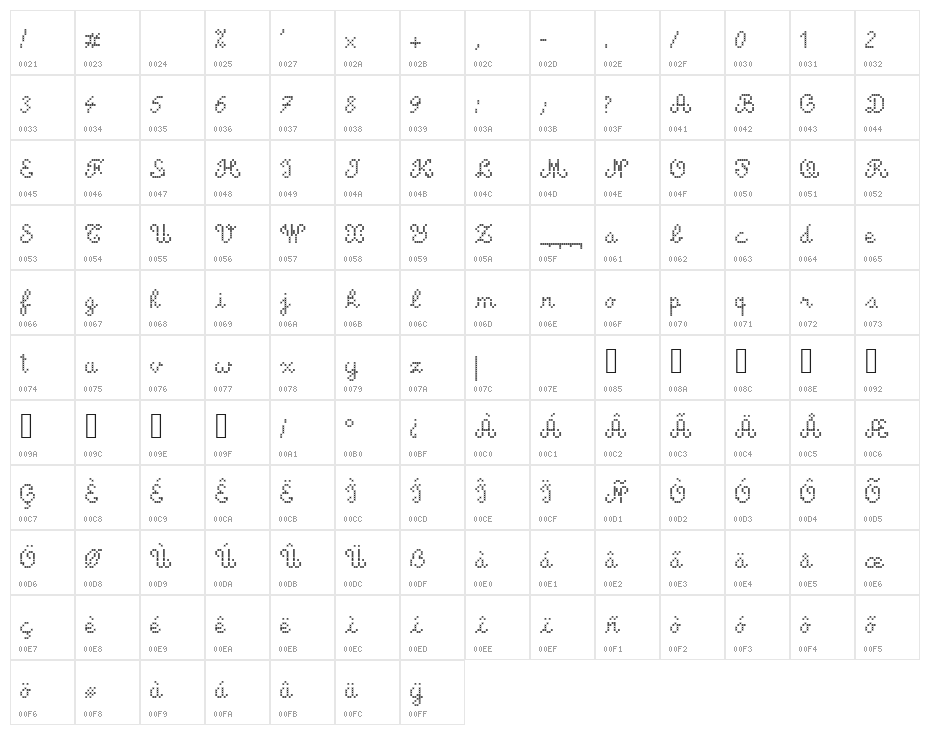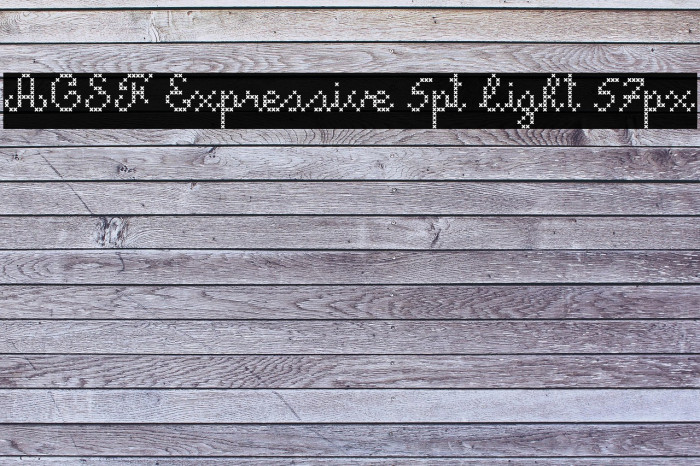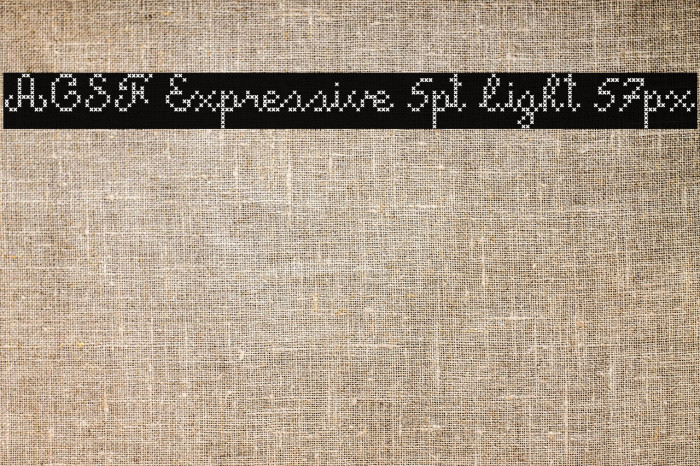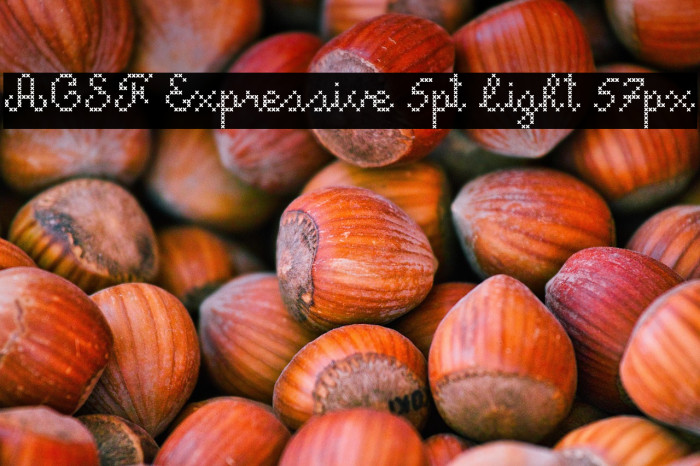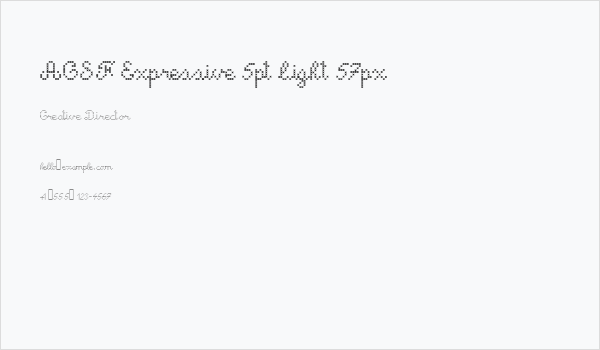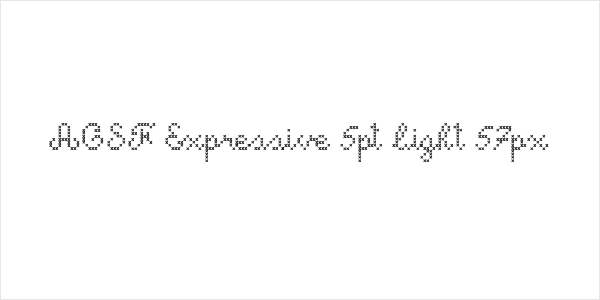
ACSF Expressive 5pt light 57px Font
ACSF Expressive 5pt light 57px Description
This font features a unique, pixelated design that mimics a cross-stitch pattern, giving it a handcrafted and decorative appearance. The characters are composed of small, uniform crosses, creating a textured and intricate look. Despite its decorative nature, the font maintains legibility with distinct letterforms. The uppercase and lowercase letters, along with numbers and special characters, are consistently styled, making it suitable for creative projects. Its playful and artistic style can add a touch of whimsy and charm to various design applications.
| Proposed Projects | Ideal for craft-themed projects, DIY invitations, greeting cards, and decorative posters. |